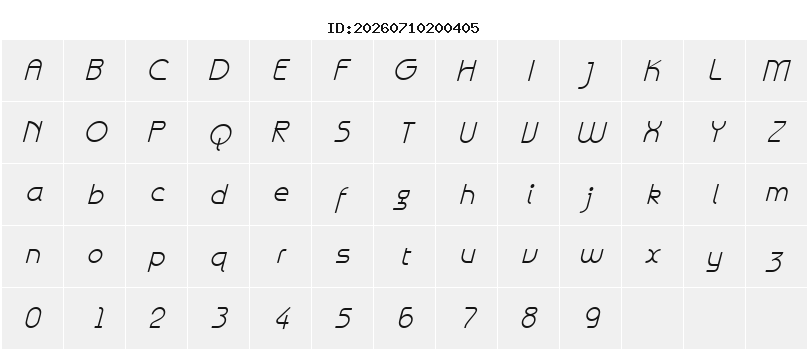
• Font Name: Galexica
• Full Font Name: Galexica Italic
About Galexica.ttf
Galexica.ttf is a modern, elegant sans-serif font designed for ultimate readability and visual harmony. Perfect for branding, headlines, web design, and print materials.